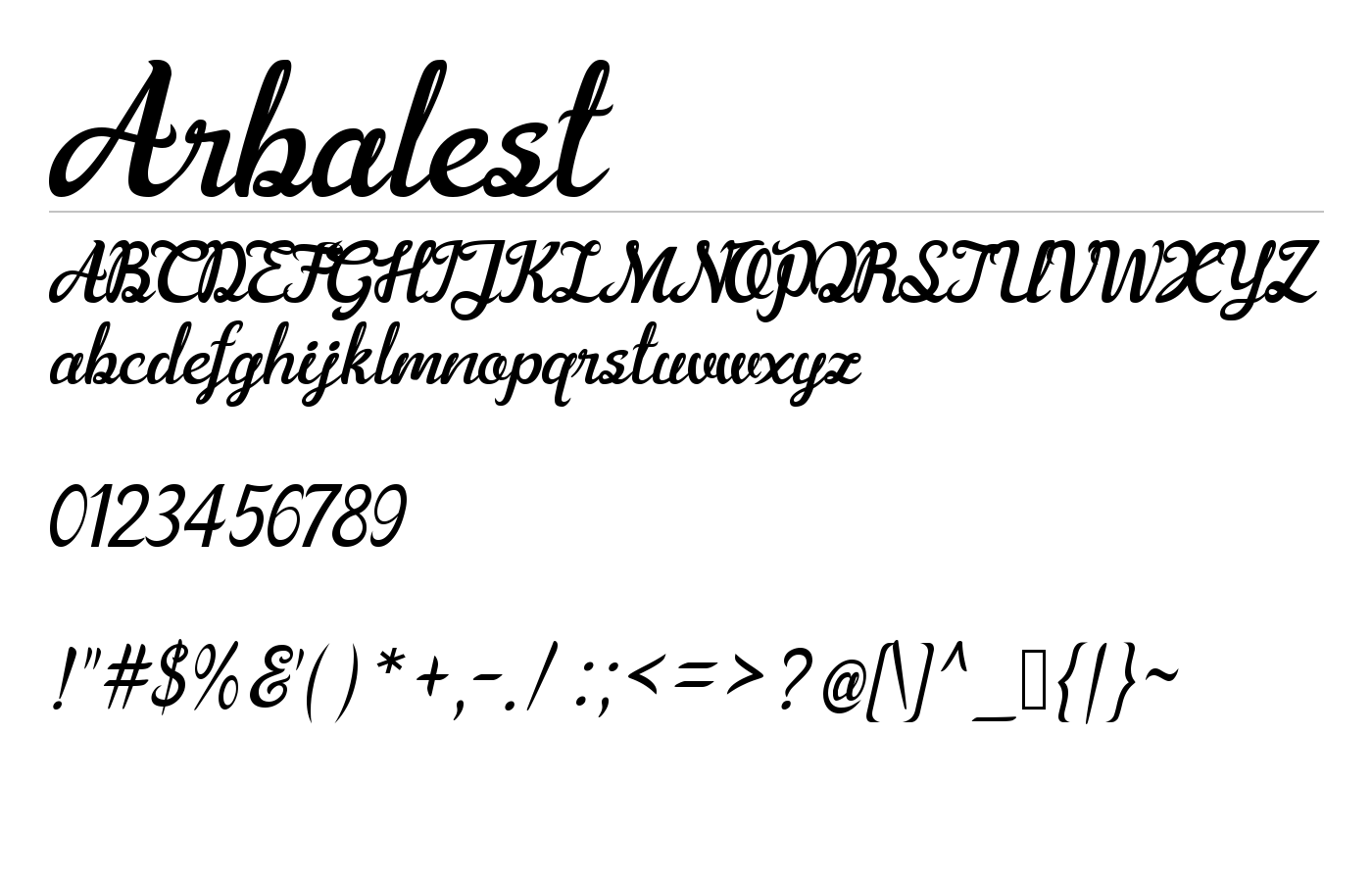
Arbalest is an elegant script font with a refined, slightly playful character. Its smooth, flowing strokes and moderate contrast make it ideal for invitations, branding, and decorative uses where a touch of sophistication and warmth is desired. This font works beautifully in headlines and logos, adding a personal and stylish flair.
Arbalest Font
About Arbalest Font